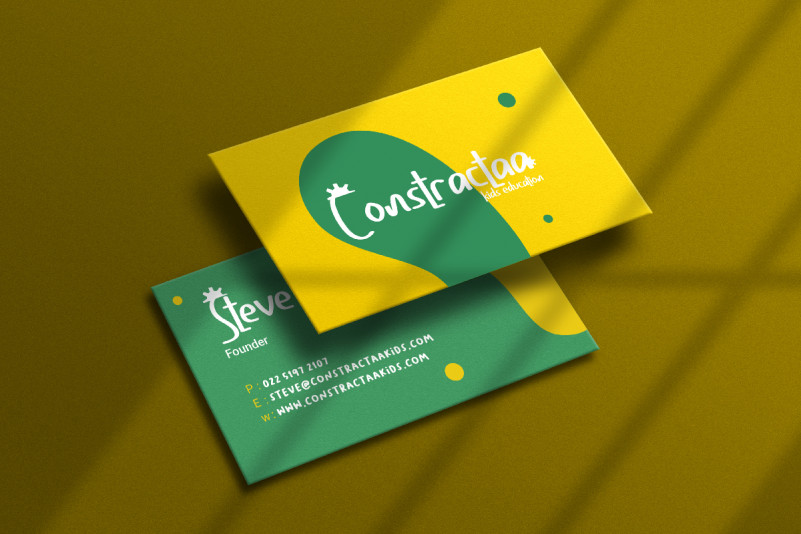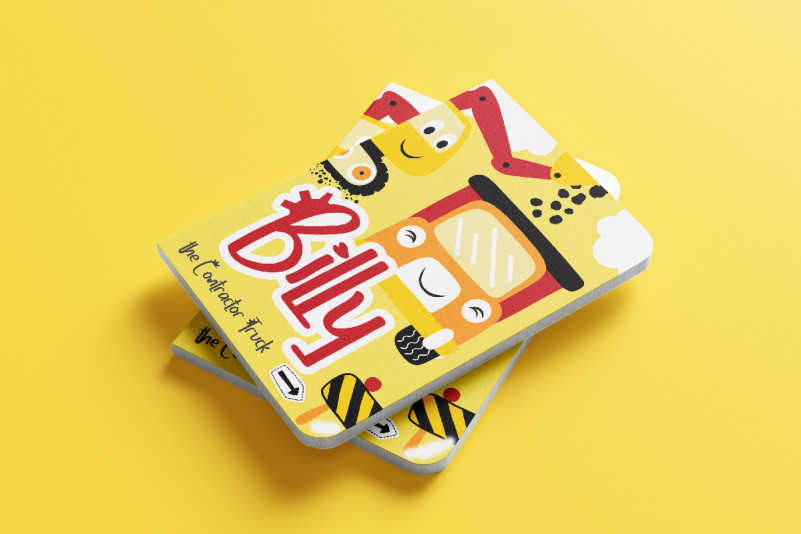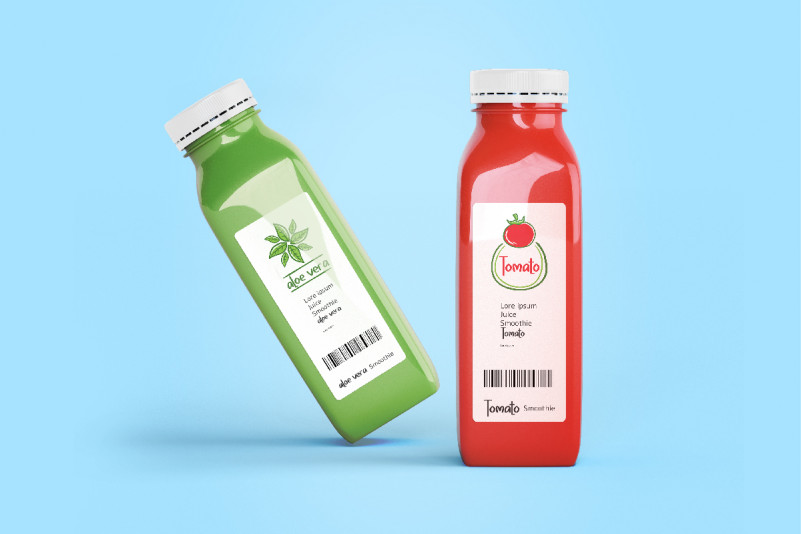
Grand Auto Display Font
This is a fun Handwriting font with children and cartoon theme style. The font will be awesome for brands, packaging, invitation, games. etc. Grand Auto Font will suit many industries and categories related to kids, humor, family etc. It will work well for books, packaging, toys, homewares etc